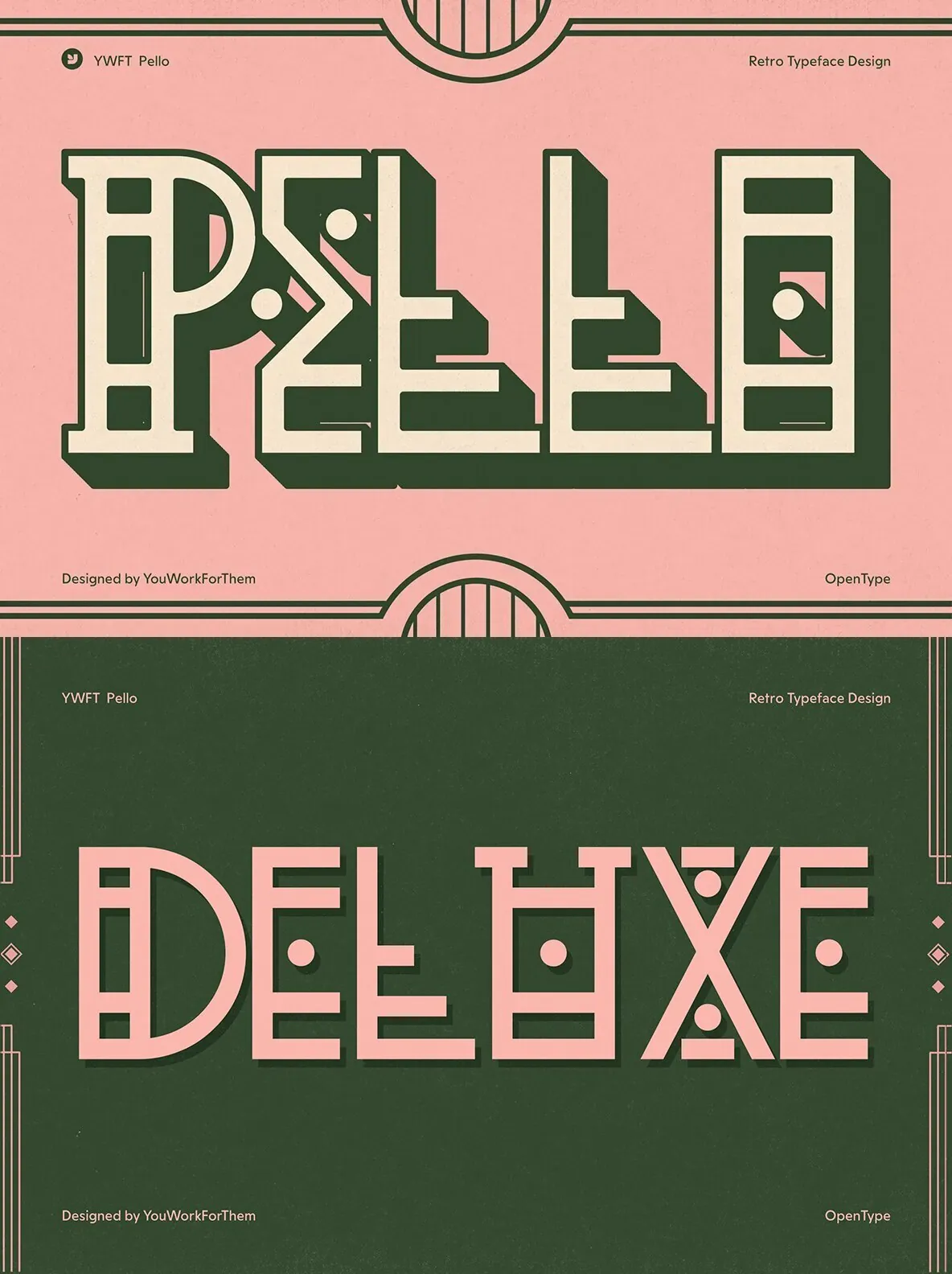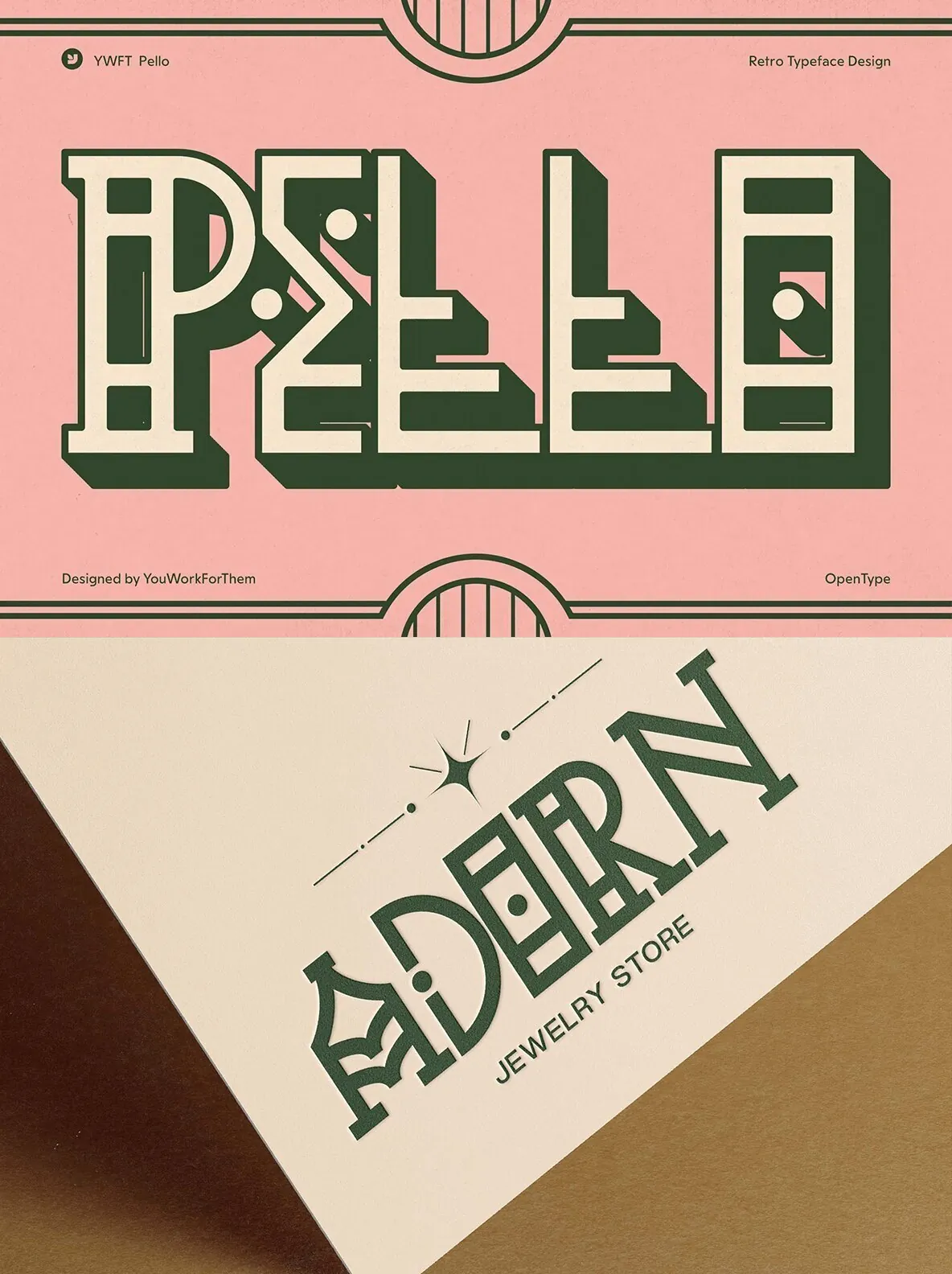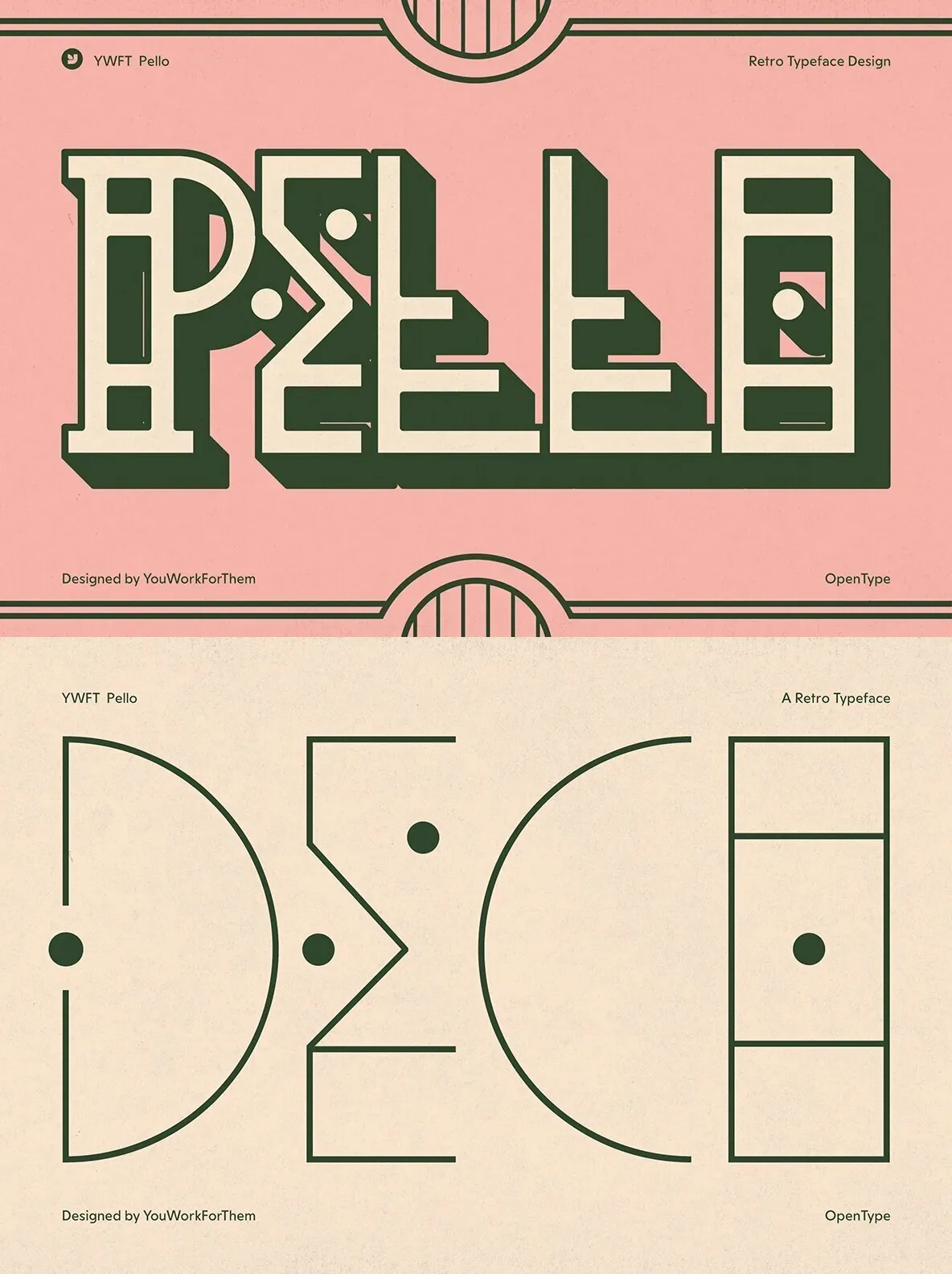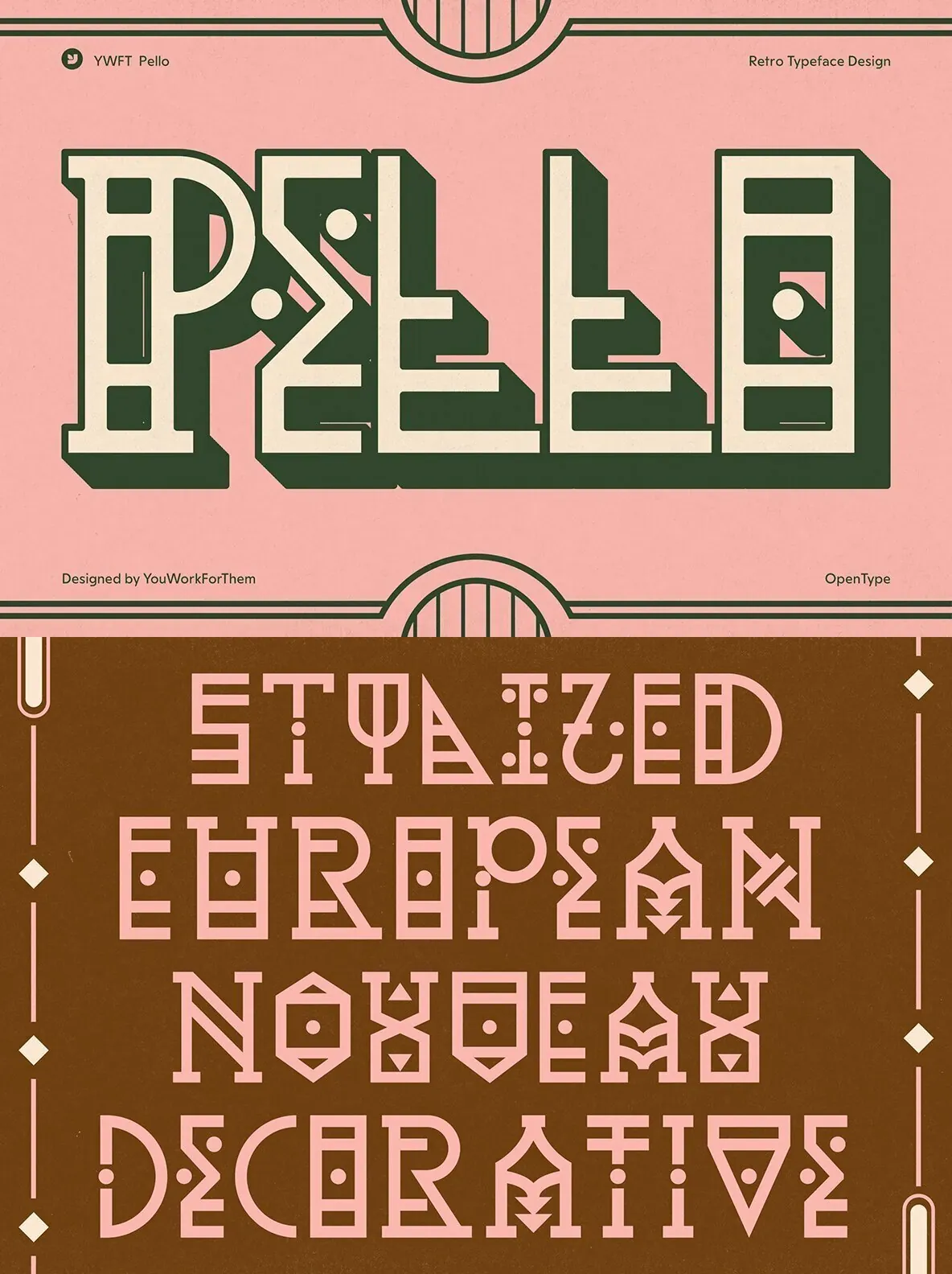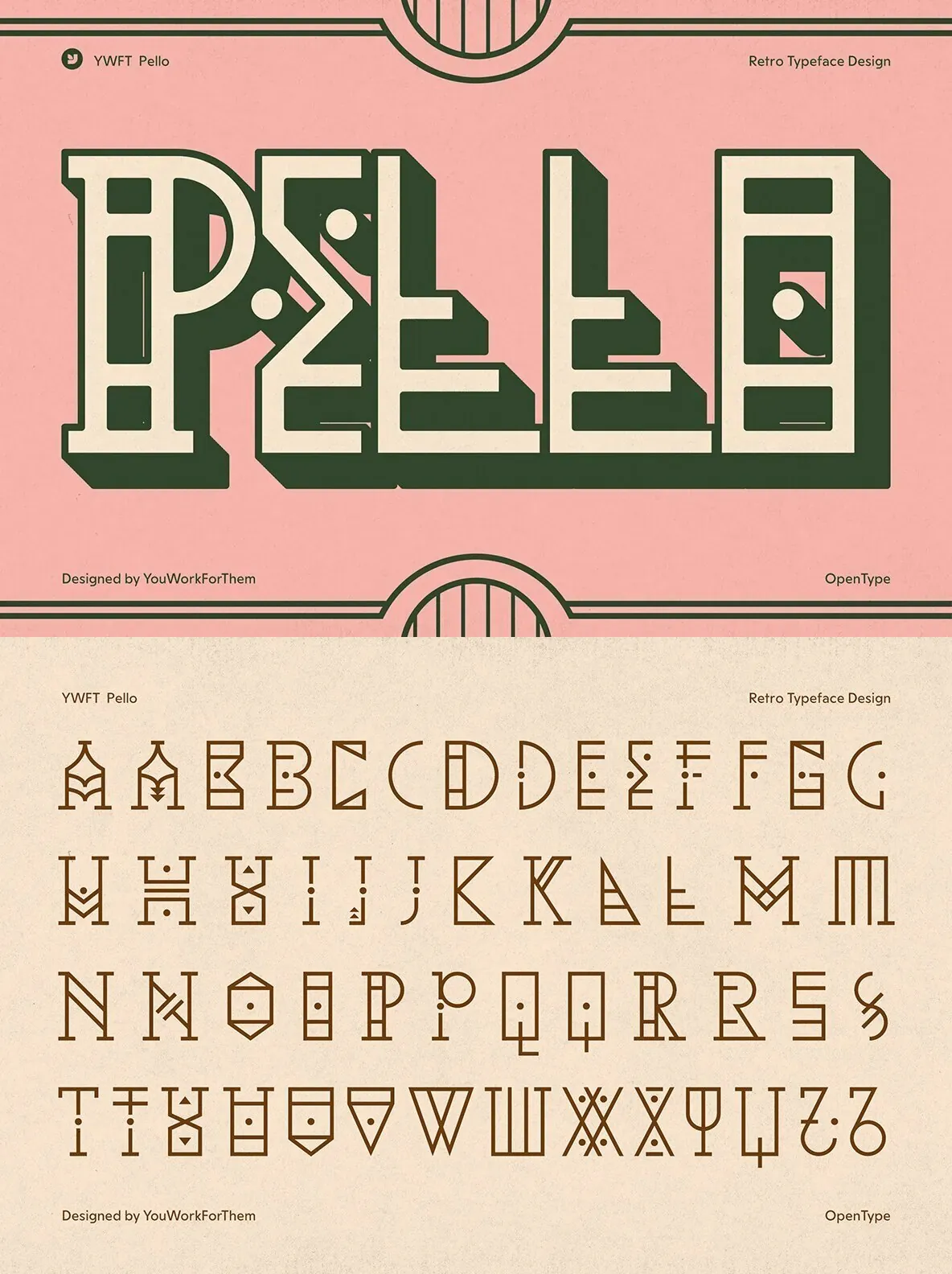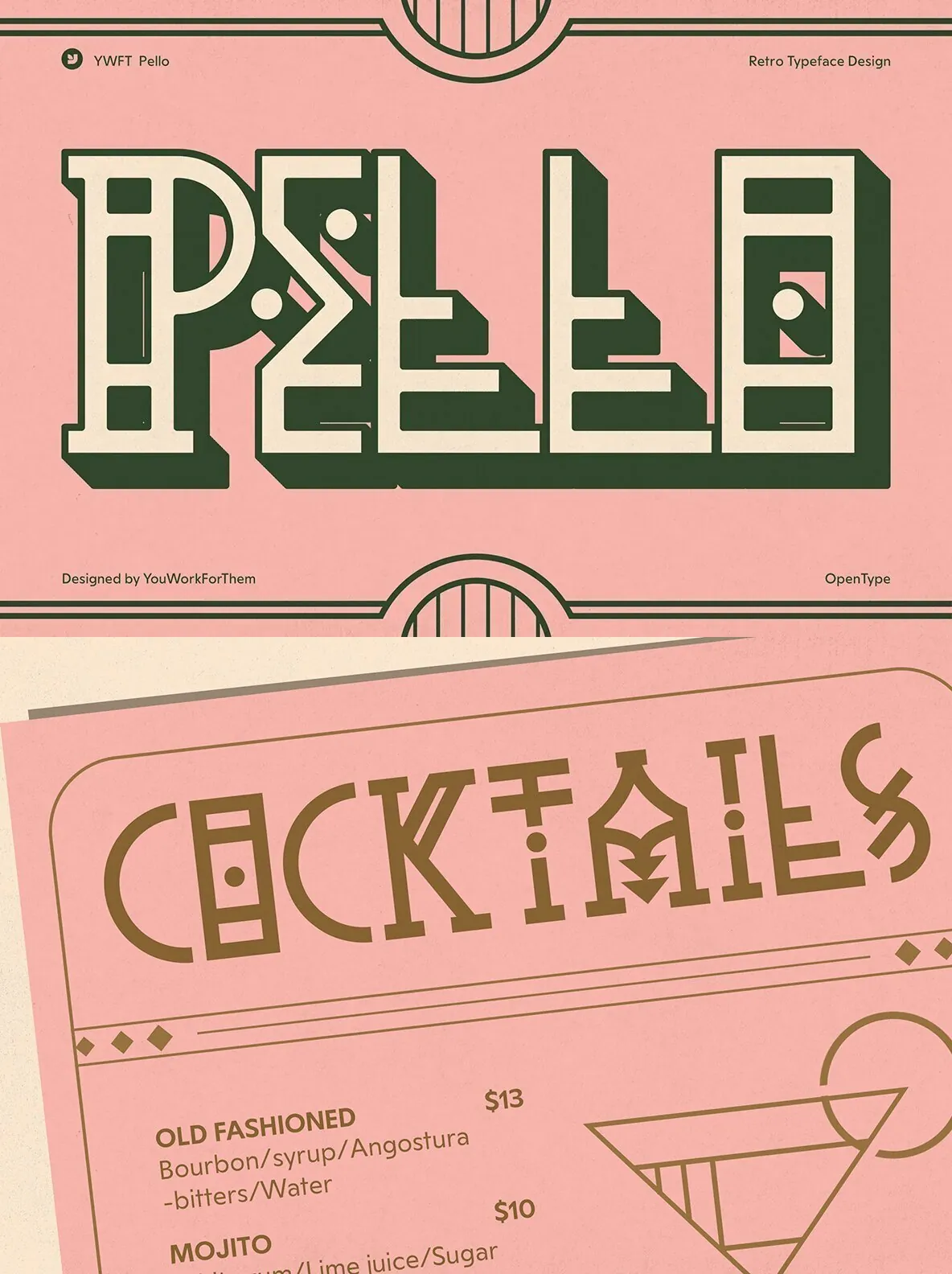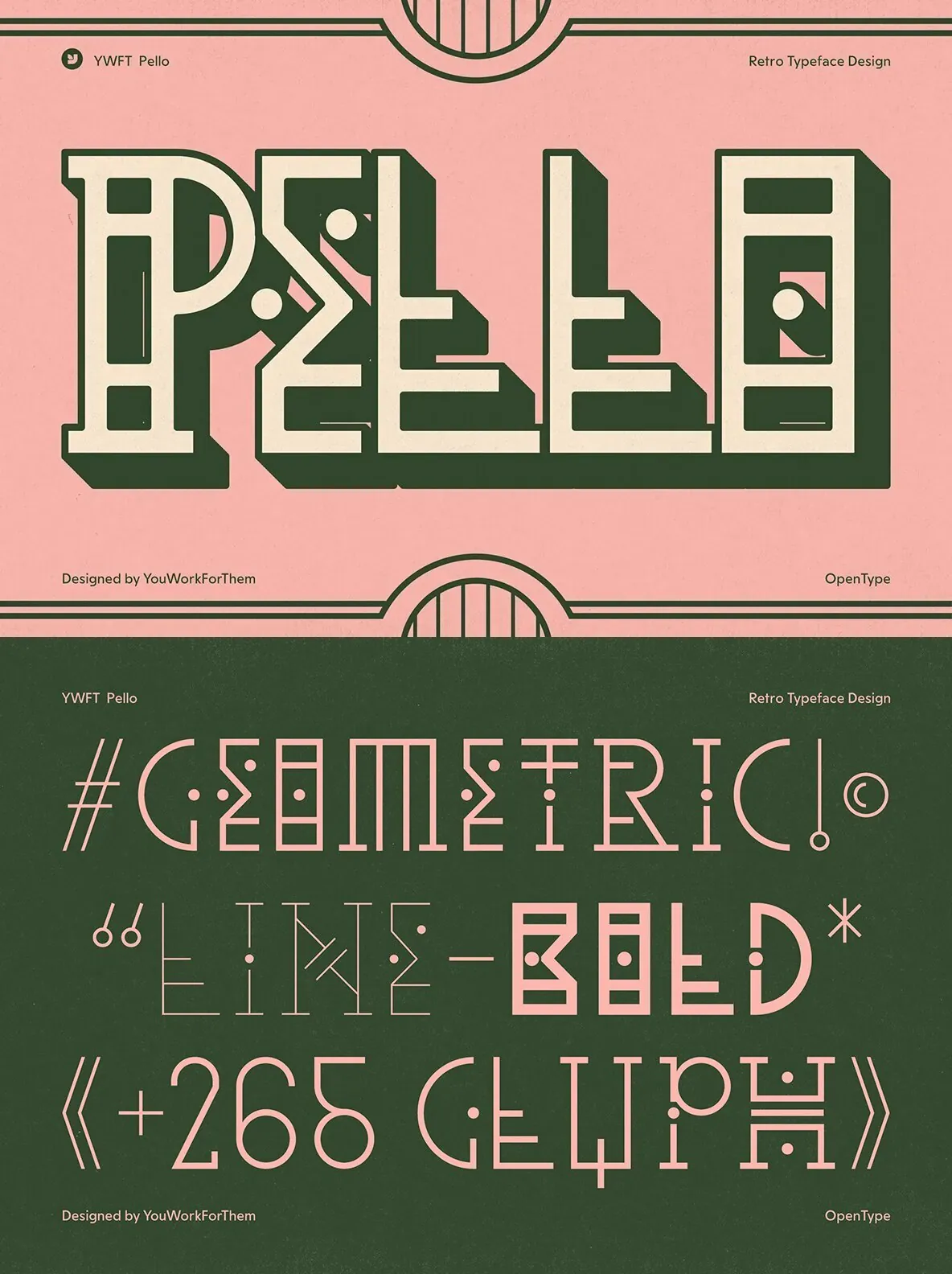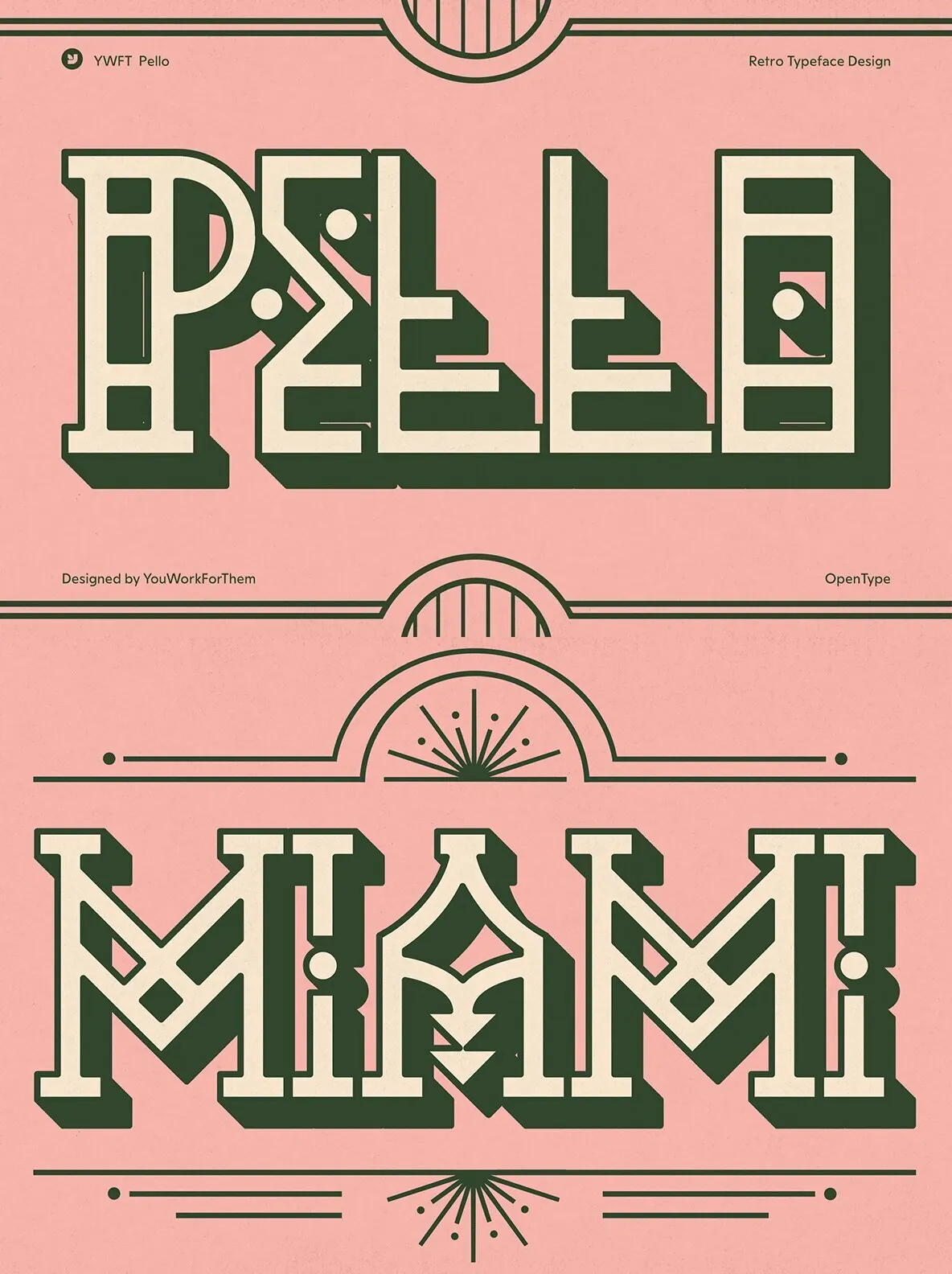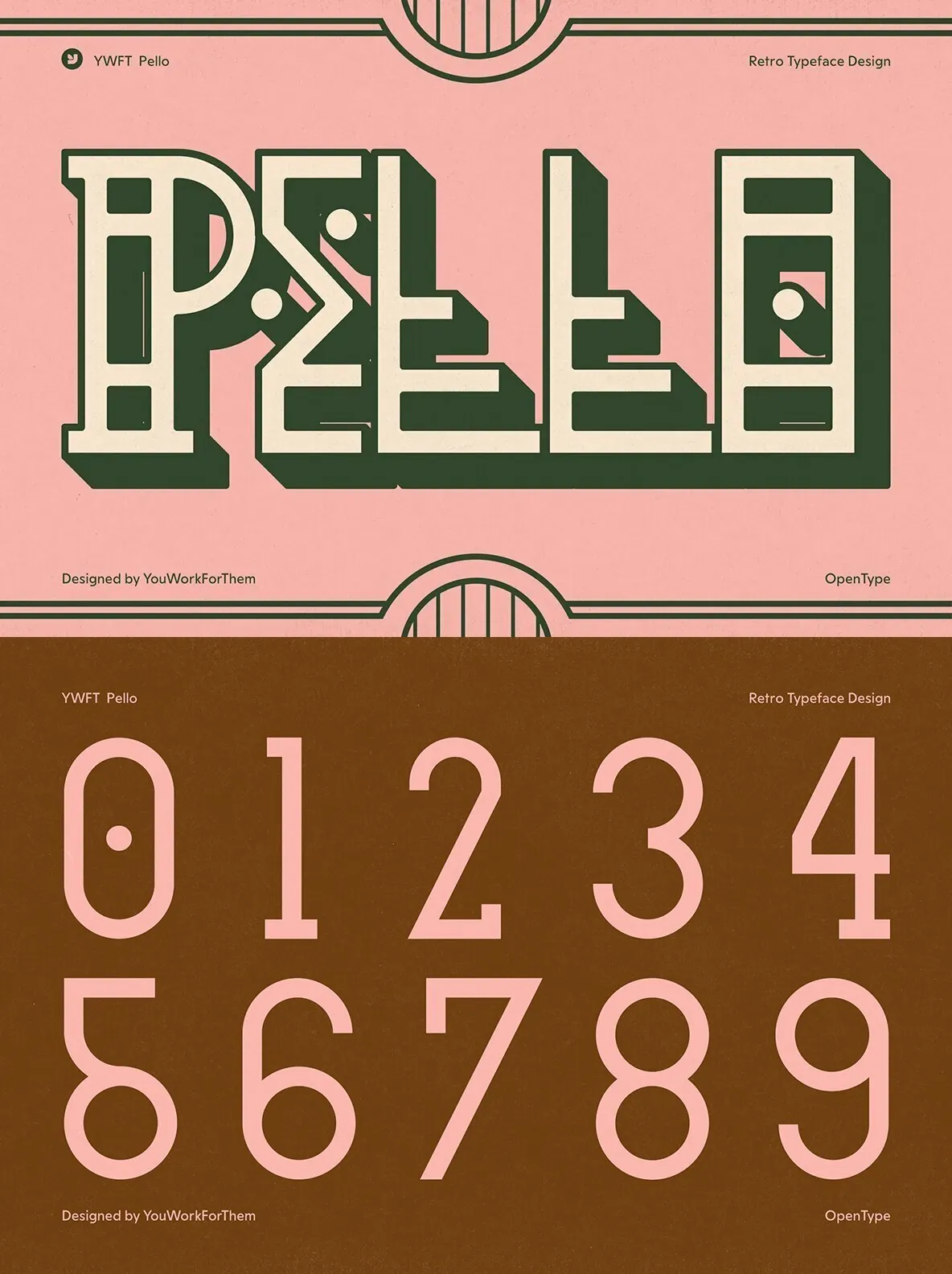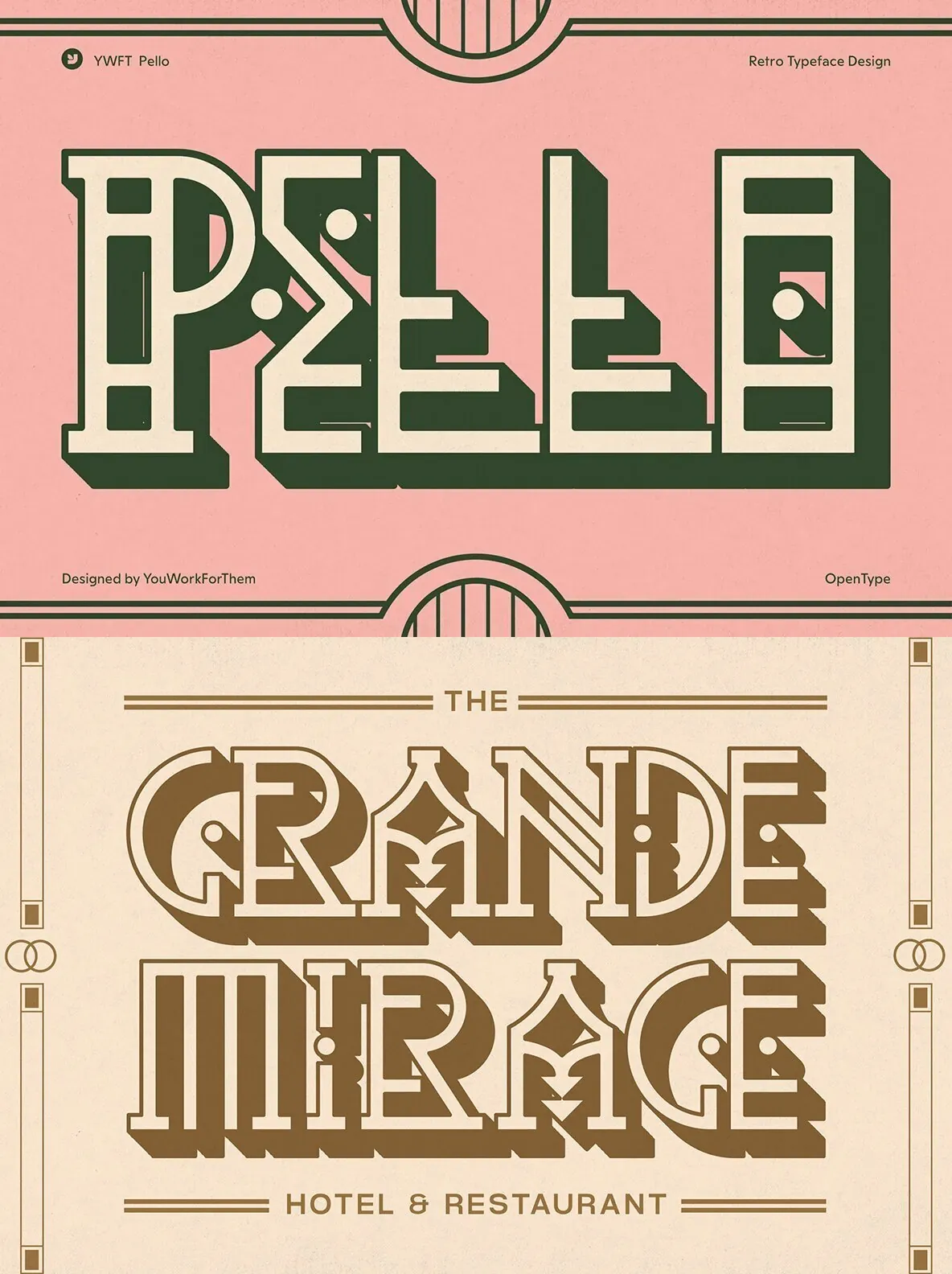
YWFT Pello captivates with a unique blend of geometric flair and modern aesthetics, reminiscent of ancient forms but firmly rooted in contemporary design. Upon closer examination, its sophisticated angles reveal influences that range from art nouveau and deco to touches of Latin boldness and European elegance. This YouWorkForThem exclusive is versatile and stylish, suitable for a variety of design projects seeking a distinctive edge.
Available in three weights—
light, regular, and bold
—YWFT Pello is equipped with a comprehensive set of Opentype features. Contextual alternates, fractions, and ligatures enhance its flexibility. Consisting of 265 glyphs, it provides designers with a rich palette to work with. Each detail, from its expansive corners to subtle stylistic touches, makes YWFT Pello a compelling choice for adding a geometric, modern character to your creative endeavors.